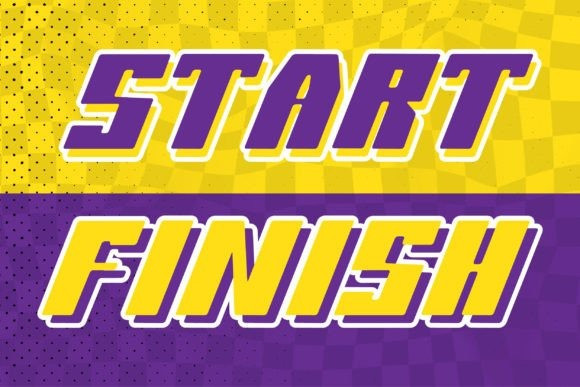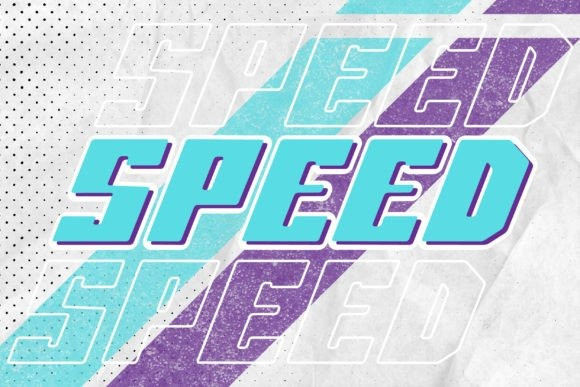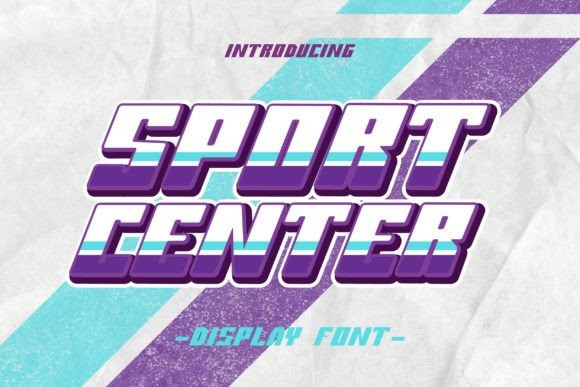
Sport Center Font
Sport Center Font is a Display font. It features an urban style that makes it perfect for Sport posters, flyers, headlines and much more! Try out this wonderful typeface and explore its stunning appearance.